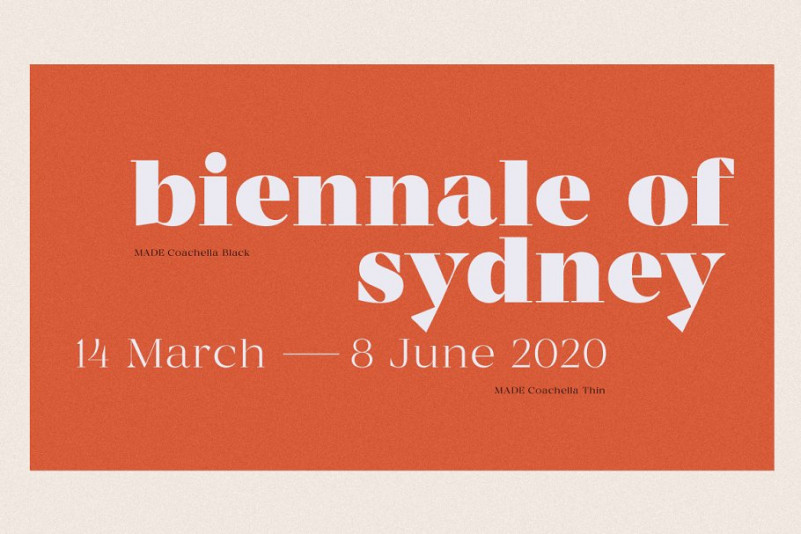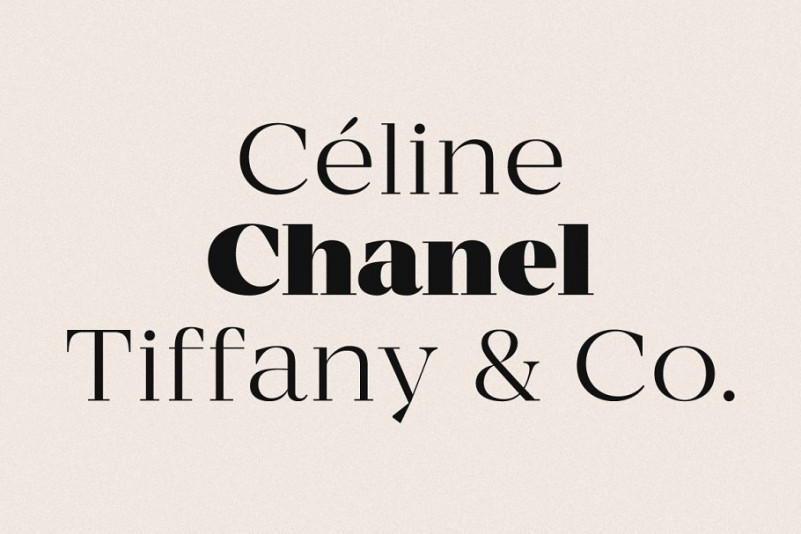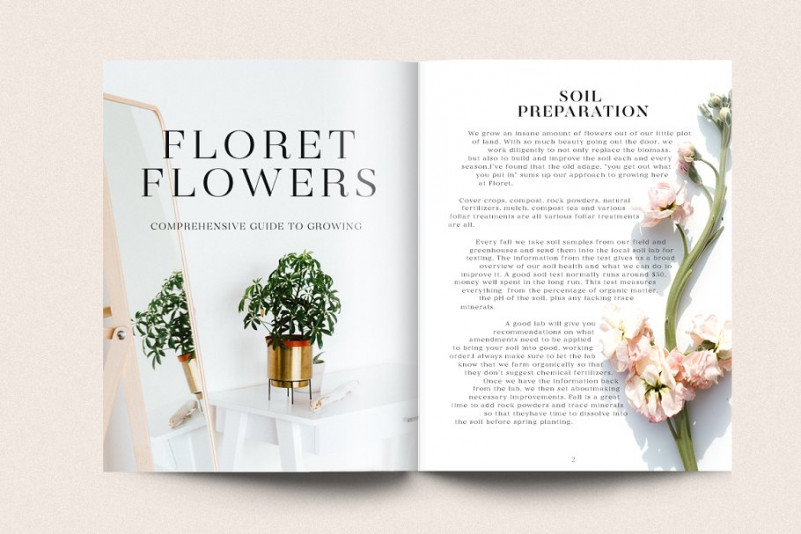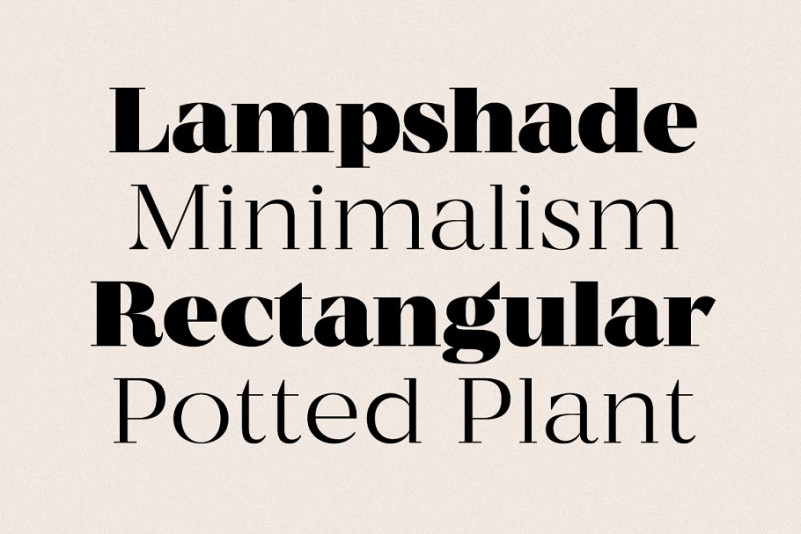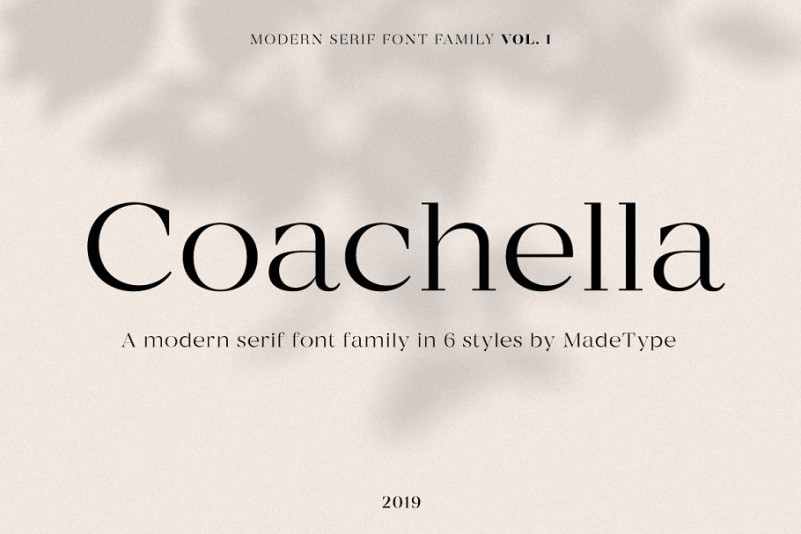
Made Coachella Font Family
Made Coachella Font Family – Free Demo
Hello guys. A high contrast serif typefamily. I think this font is perfect for people looking for vintage aesthetic or handdrawn logo. Introducing Coachella Font. Made Coachella designed and shared by MadeType. MADECoachella is a contrasting serif font family. The powerful, straight and technical appearance of a constructed low contrast serif typeface. The carefully rounded corners simply bring up a subtile bit of softness.
The font family will perfect for many project: fashion, wedding invitations, book, magazines, logo, branding, photography, invitations, quotes, blog header, poster, advertisements, etc.